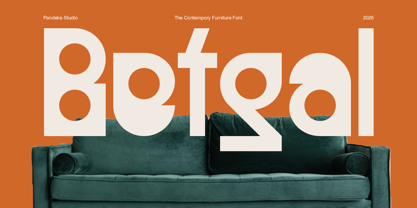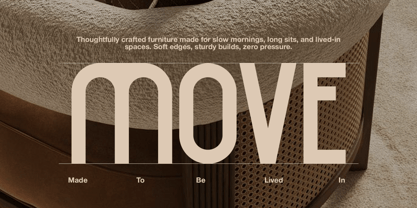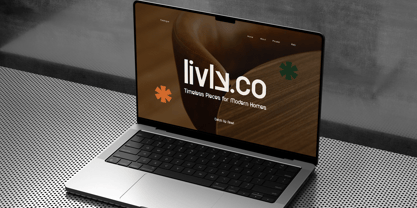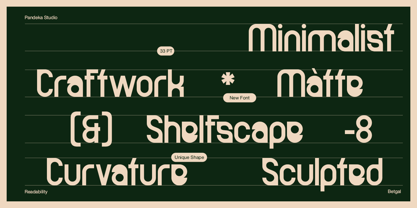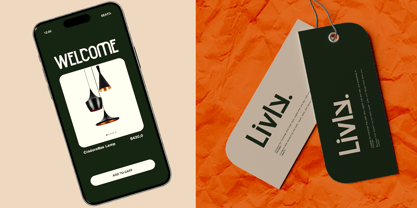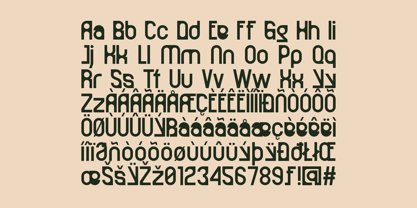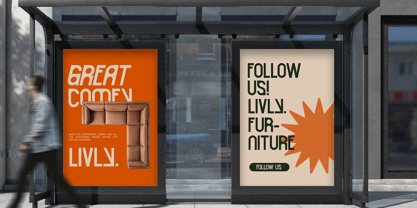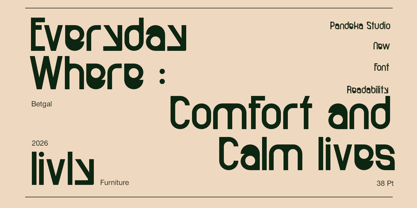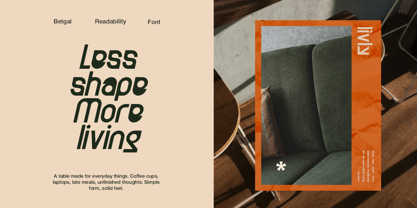
Betgal
by Pandeka Studio
The Betgal Font Family was designed by Sagara Nararya and published by Pandeka Studio. Betgal contains 2 styles and family package options. More about this family
Betgal is a contemporary furniture font designed with a clean, modern, and stylish aesthetic. Its smooth curves and balanced shapes create a warm yet professional look, making it perfect for interior branding and lifestyle-focused designs.
This font comes in 2 styles: Regular & Oblique, and includes uppercase, lowercase, numbers, punctuation, and multilingual support. Ideal for furniture branding, interior design, home decor brands, lifestyle visuals, modern logos, editorial layouts, and elegant promotional materials.